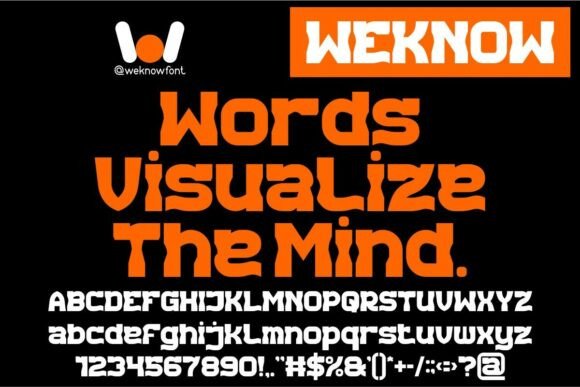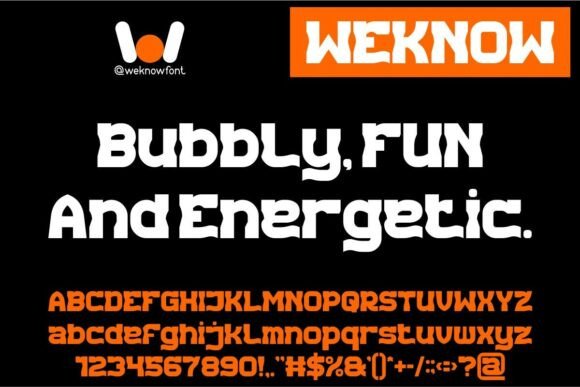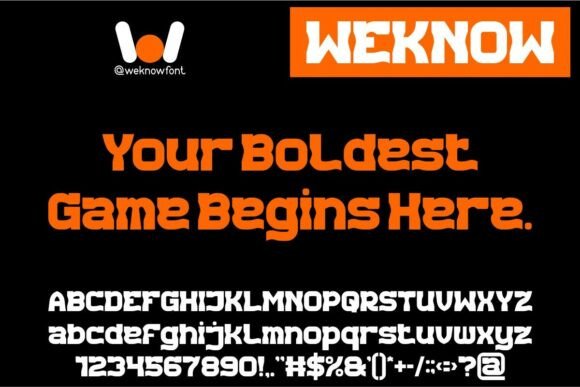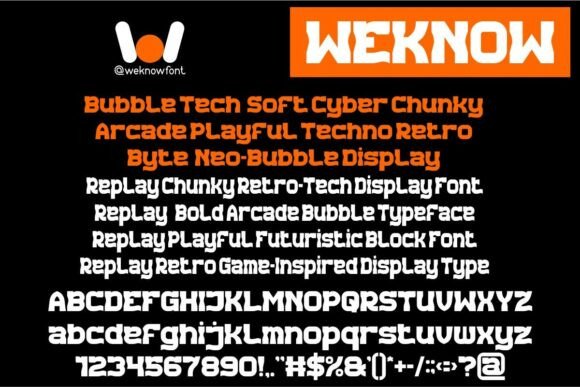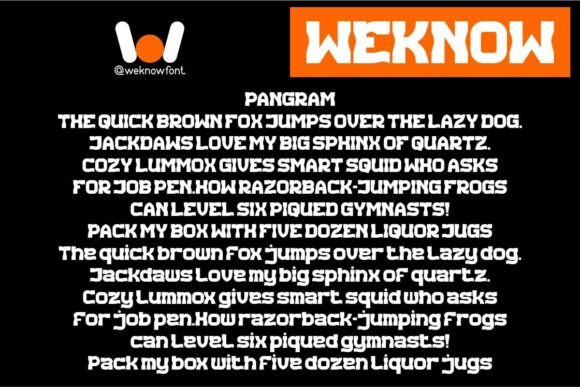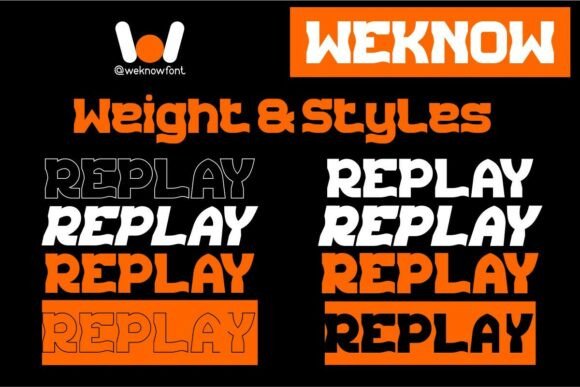
Introduction to Replay Font
Do you remember the thrill of waiting for your favorite video game to be released, only to eagerly rip open the package and dive into the world of pixelated wonder? For designers, that same sense of excitement and anticipation can be sparked with the right design element – and that’s where the Replay Font comes in.
Replay Font is a game-changer for creatives, offering a unique blend of chunky design and retro flair that’s perfect for adding a touch of nostalgia to your projects. Whether you’re working on a music festival poster, a video game-themed apparel line, or a tech-savvy blog, this dynamic font is sure to bring your design to life.
Key Features of Replay Font
- High-quality, free download font designed for creative projects, ideal for designers and artists looking for a unique design resource.
- Includes a comprehensive set of glyphs, including uppercase and lowercase letters, numbers, and punctuation marks, making it suitable for a variety of creative projects.
- Designed with a modern and sleek aesthetic, perfect for branding, logos, and digital design projects that require a high level of sophistication.
Honest Review: Replay Font
I recently stumbled upon the Replay Font and was immediately drawn to its high-quality design. As a designer, I’m always on the lookout for unique and versatile fonts to add to my creative project arsenal.
Here are some things that really work well for me:
- ✨ The Replay Font has a clean and modern aesthetic, making it perfect for a variety of design applications.
- ✨ The Replay Font features a transparent background, allowing me to easily customize and layer it with other design elements.
- ⚠️ The Replay Font is a relatively simple font, which may not be suitable for projects that require a lot of customizability or unique character options.
Overall, I’m impressed with the Replay Font’s design and versatility. It’s a great addition to my design resource library, and I can see myself using it for a variety of creative projects in the future.
The Replay Font is a free download high-quality design resource ideal for creative projects. It features a transparent background, making it versatile for use in various applications.
The Replay Font is ideal for use in creative projects such as infographics, presentations, and social media graphics. You can also use it for branding, packaging design, or even as a decorative element in web design.